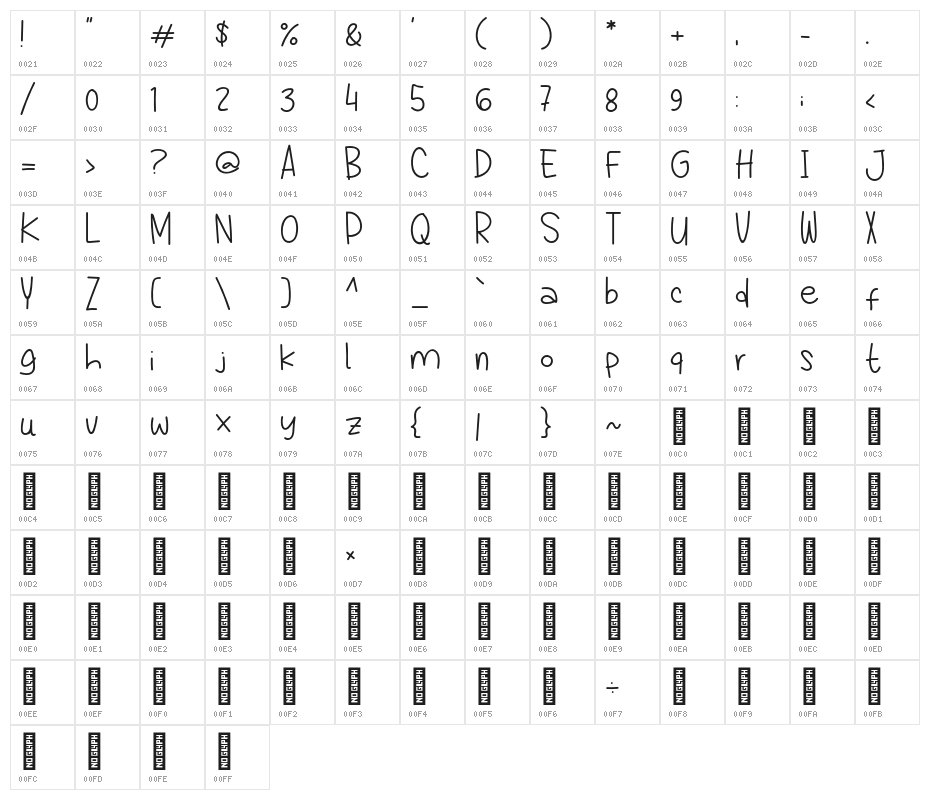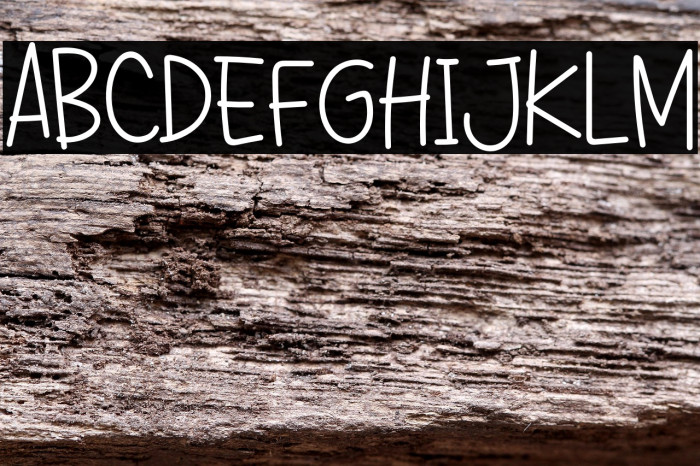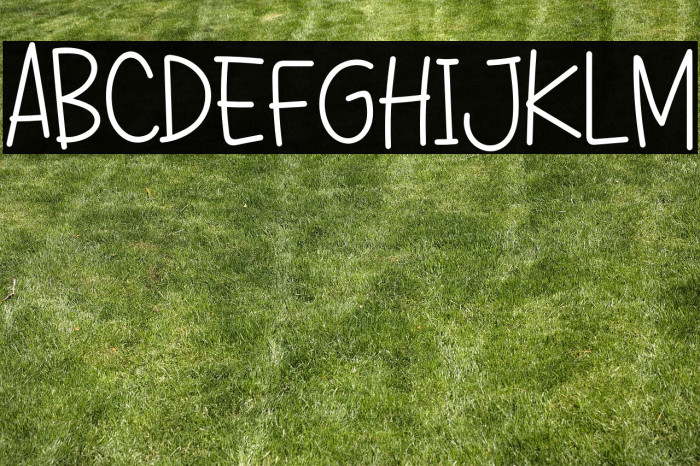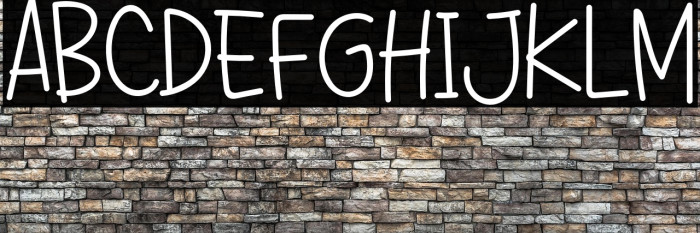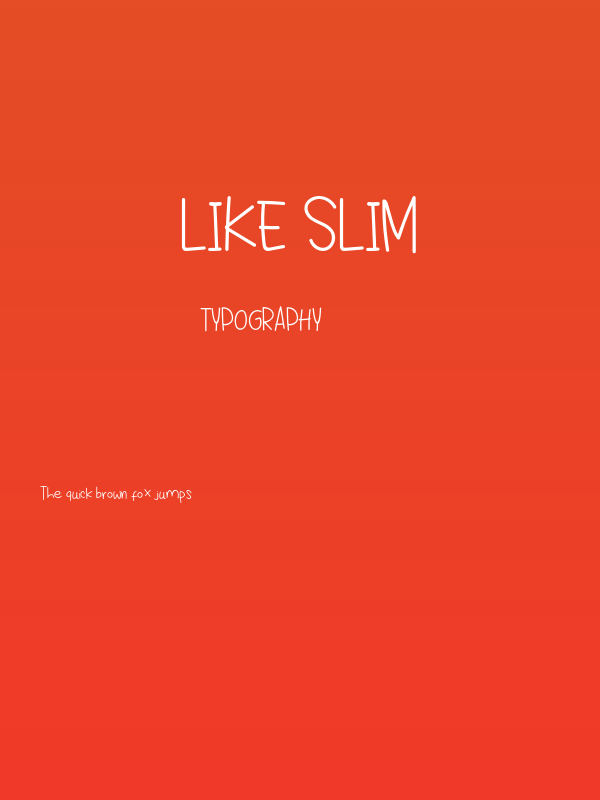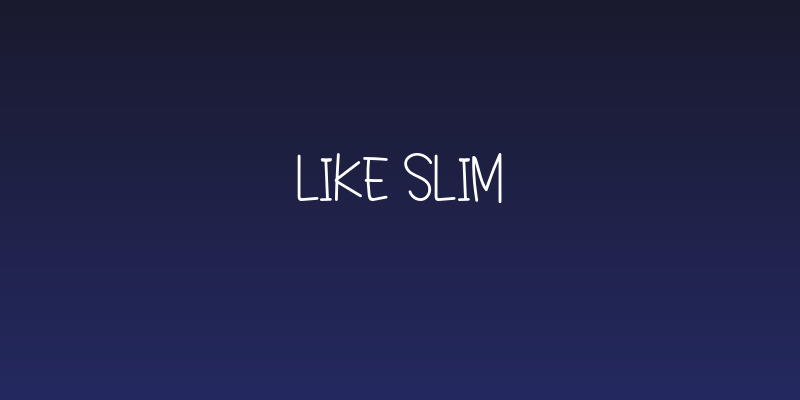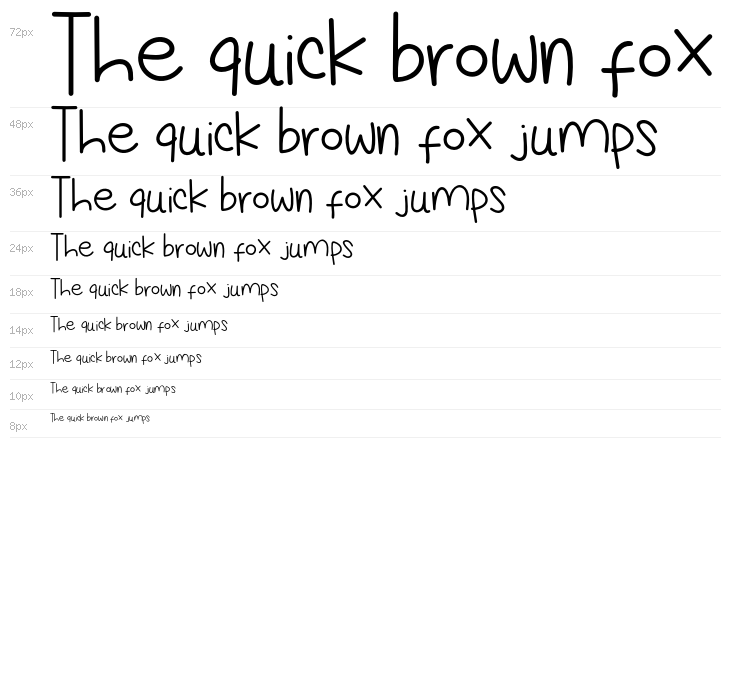
Like Slim Font
Like Slim Description
This font features a playful and casual handwritten style, characterized by its slim and elongated letterforms. The strokes are consistent in width, giving it a uniform appearance. The uppercase and lowercase letters maintain a friendly and approachable look, with rounded edges and a slight tilt that adds to its informal charm. The numerals and special characters follow the same aesthetic, ensuring cohesion across all elements. This font is perfect for projects that require a personal touch, such as greeting cards, invitations, or children's book covers.
| Overall Style | Casual |
| Proposed Projects | Ideal for greeting cards, invitations, children's books, and casual branding. |